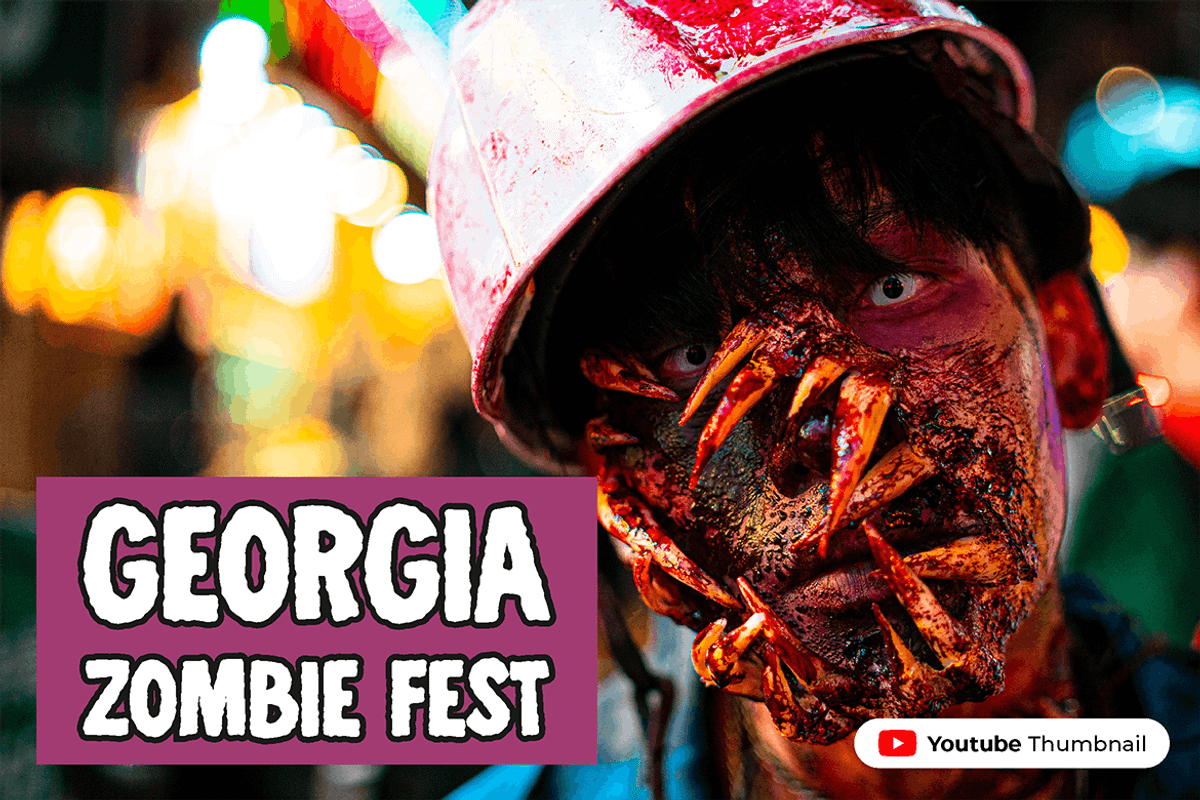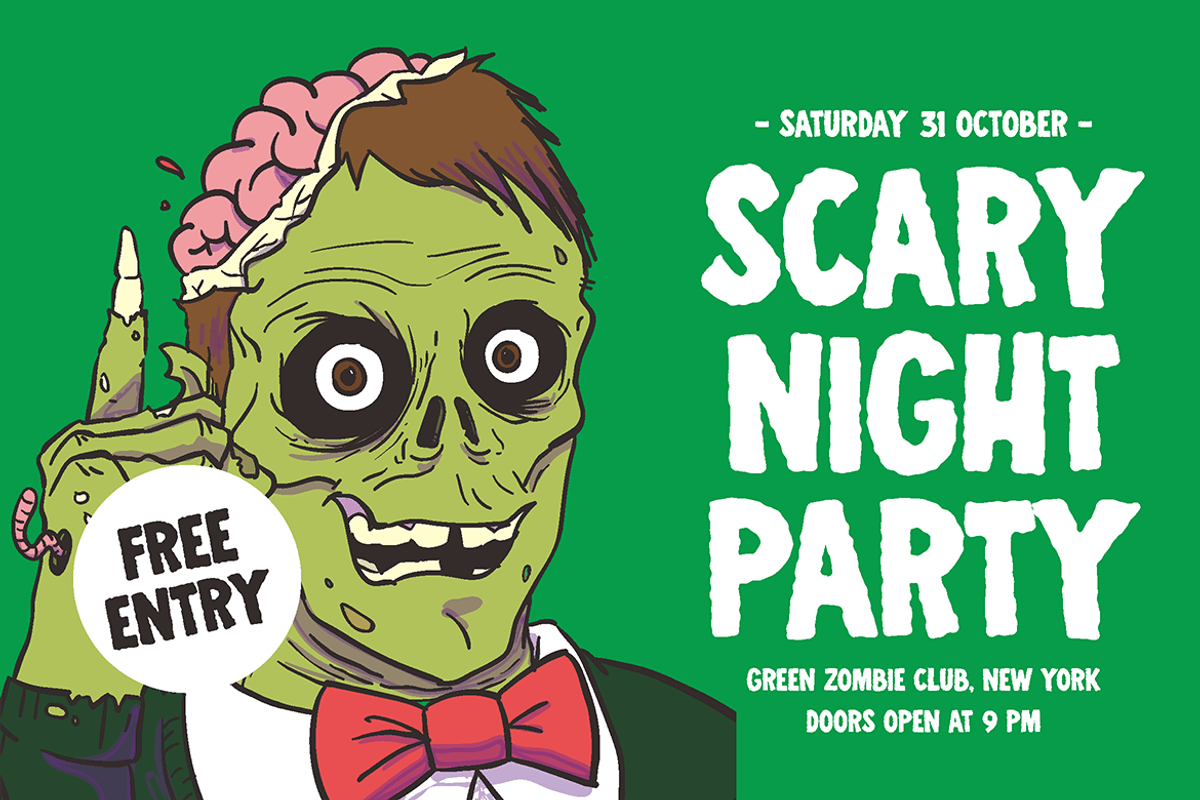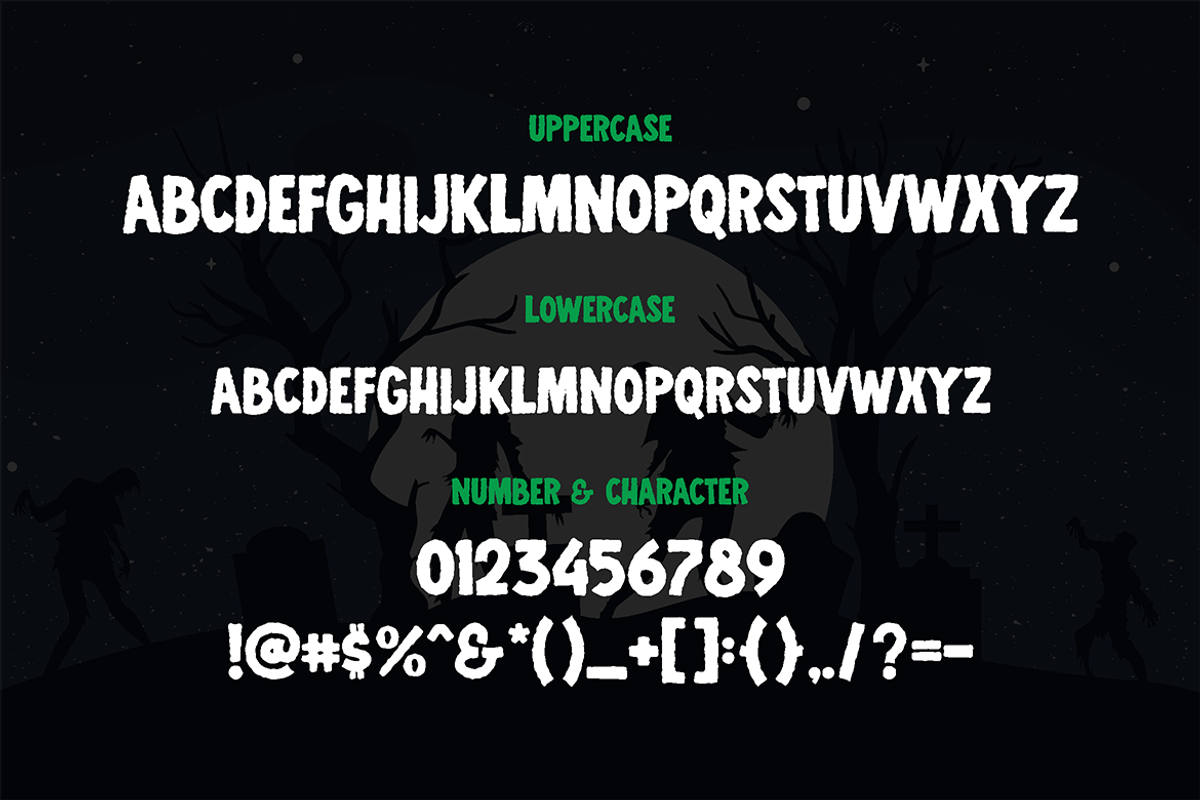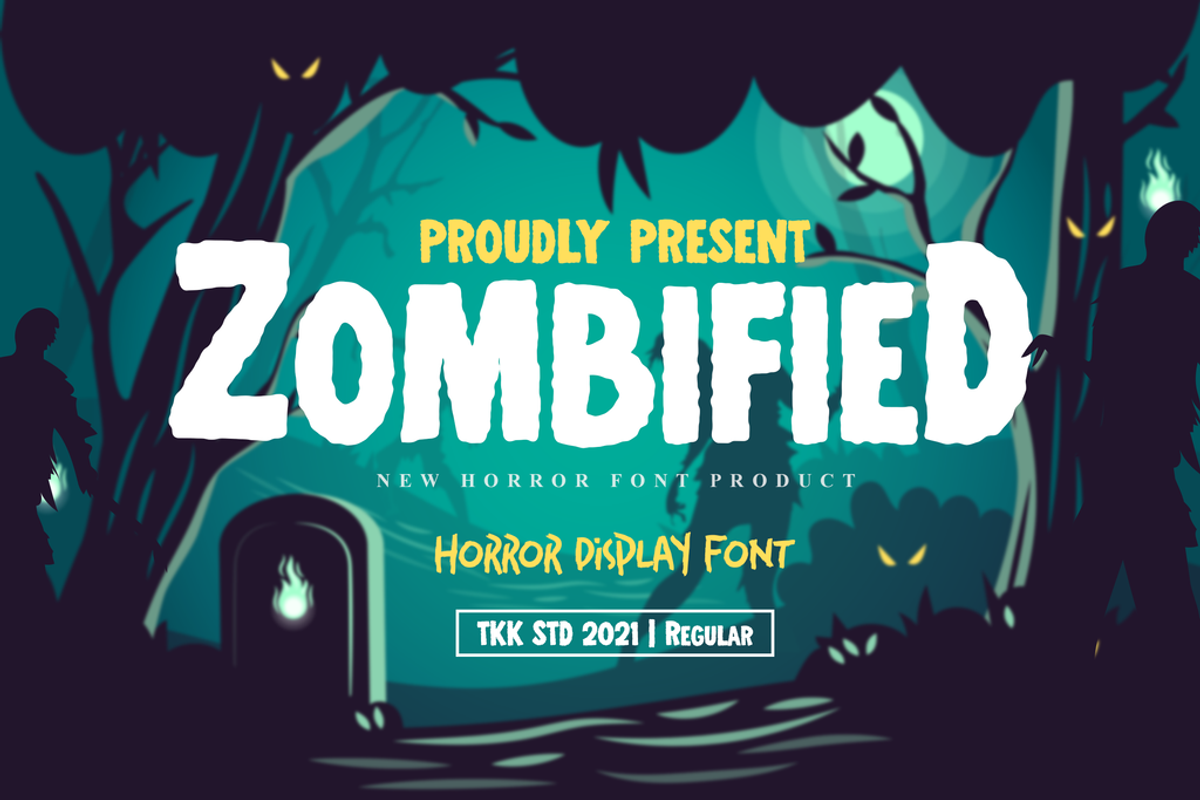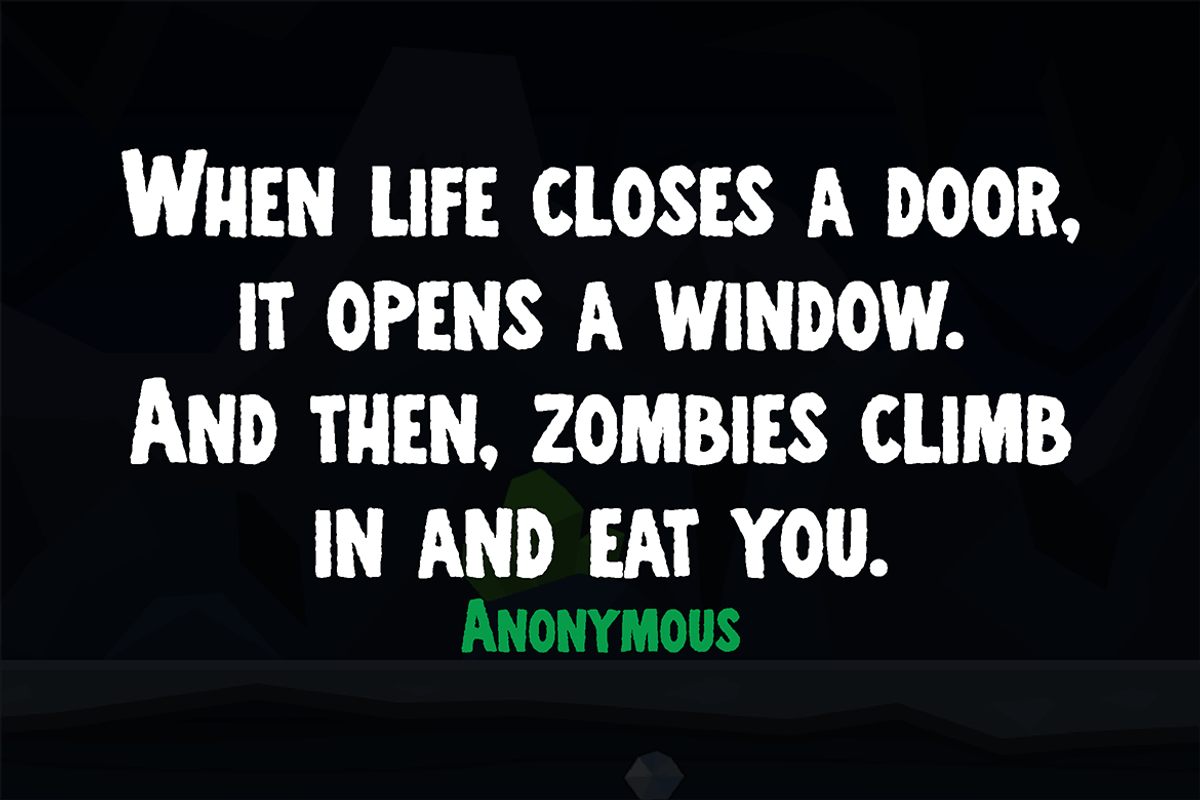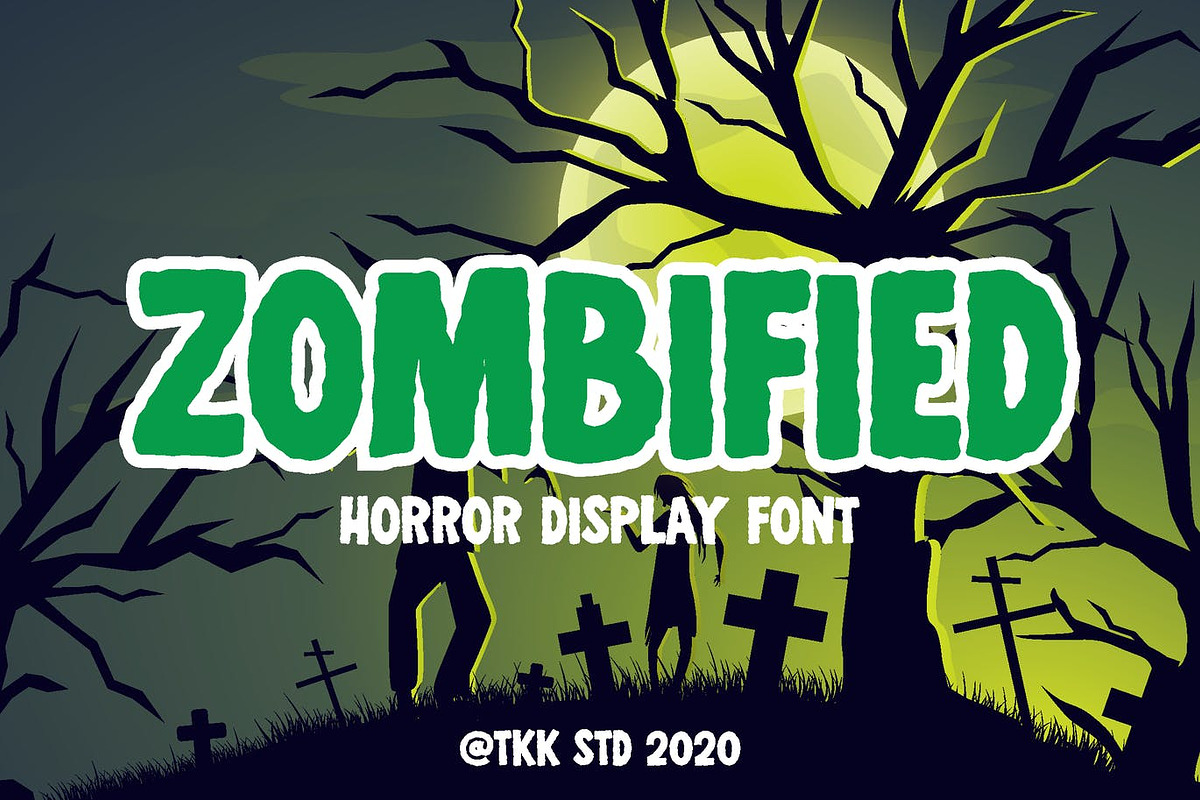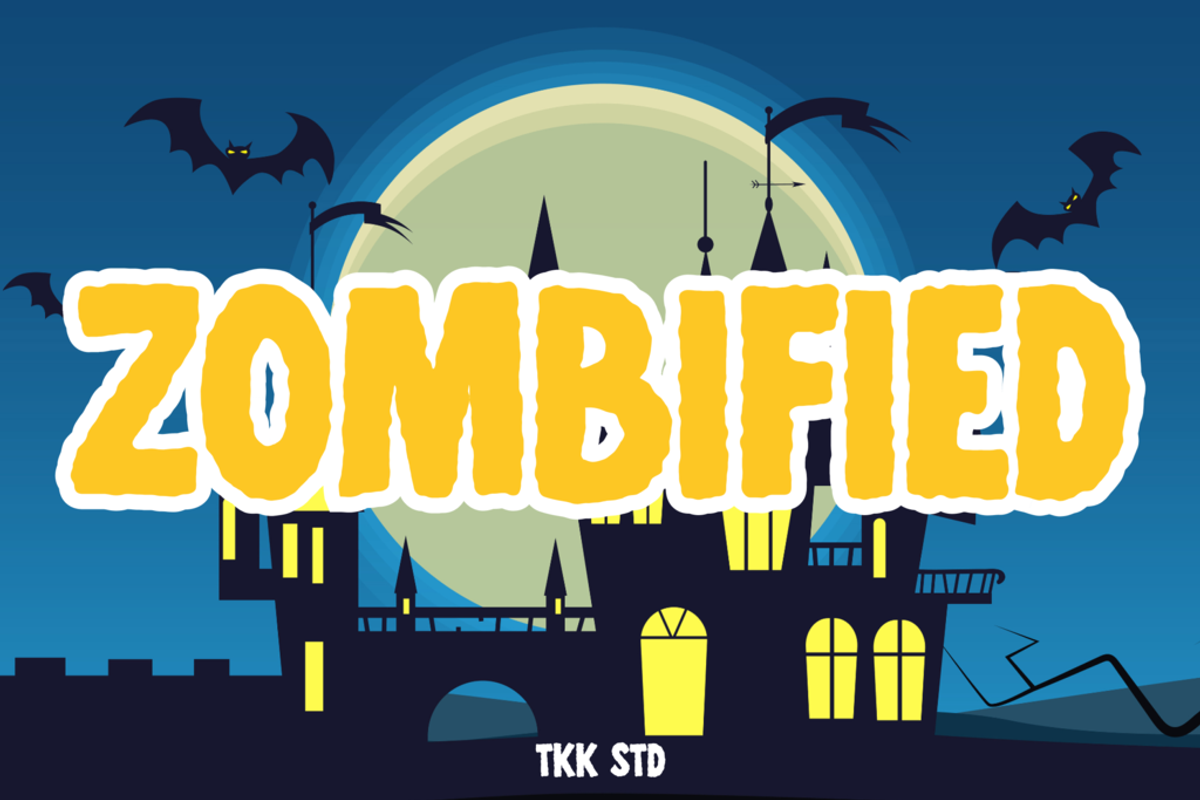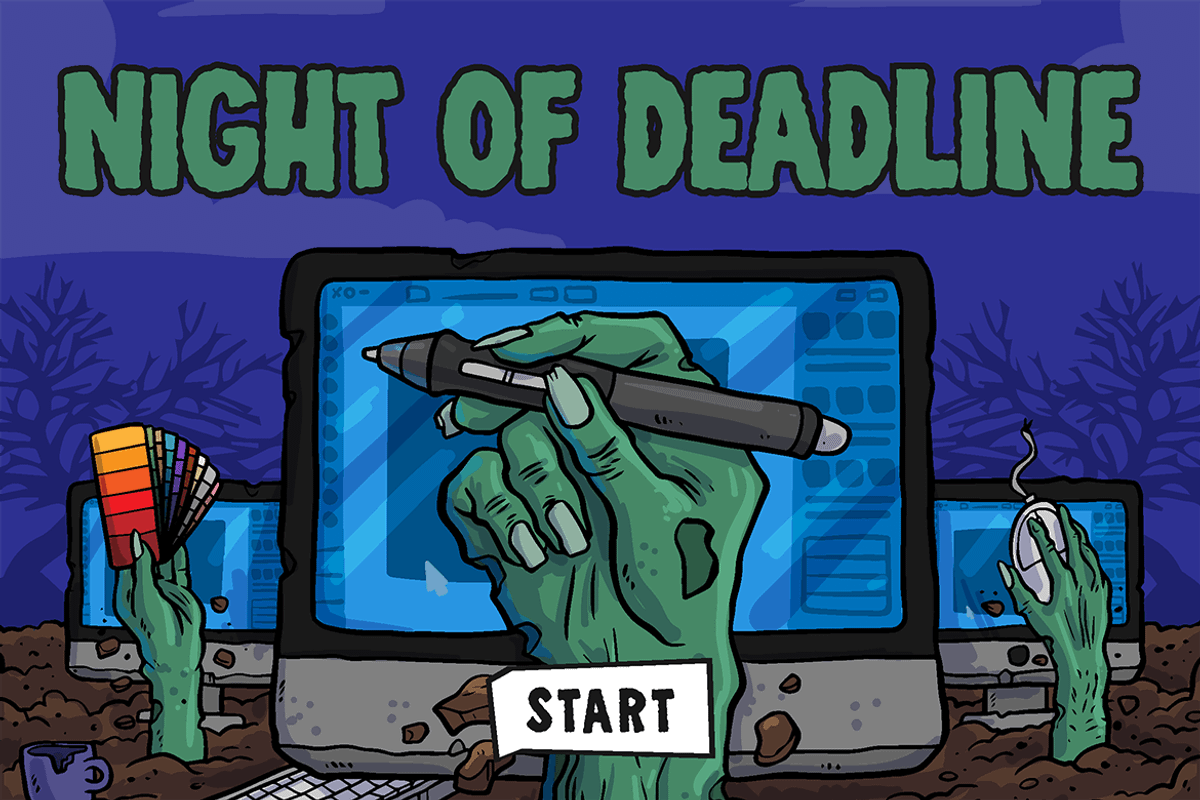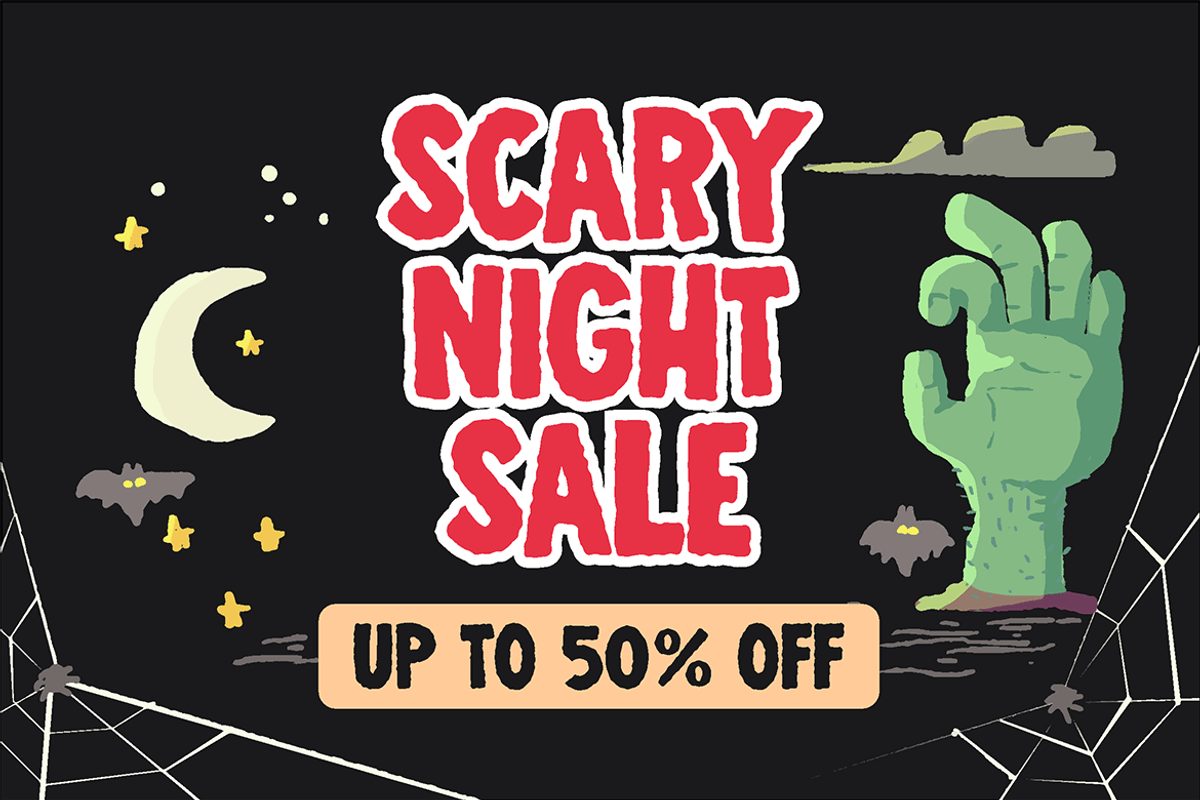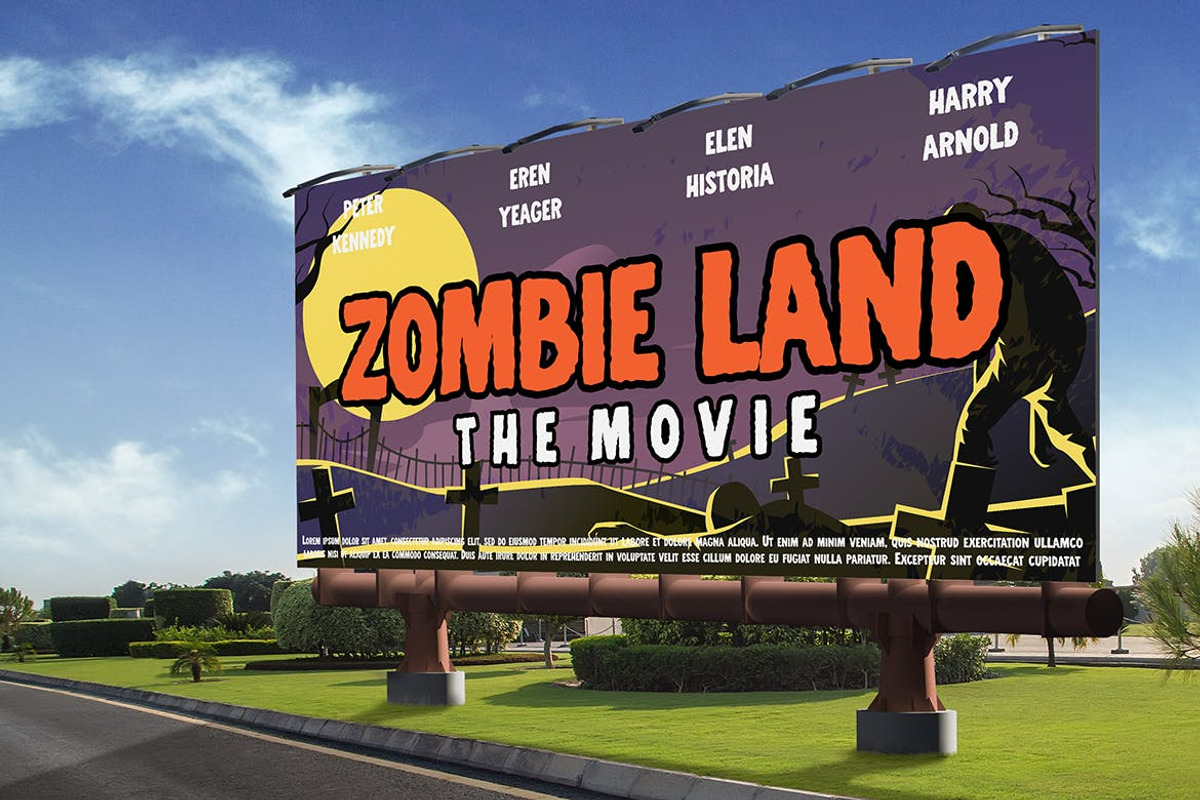
Zombified - Horror Font
Zombified horror font is coming at you... you cannot escape the terror. Imagine the dark, windy, and foggy night... a scratch sound growling from under... the owl hooting at the dead tree branch... suddenly a slimy and smelly hand arise from the graveyard...
Suit perfectly for Mystery and horror games, poster, movie title, fast food menu, magazine, youtube covers, youtube thumbnails, social media page covers and so on...